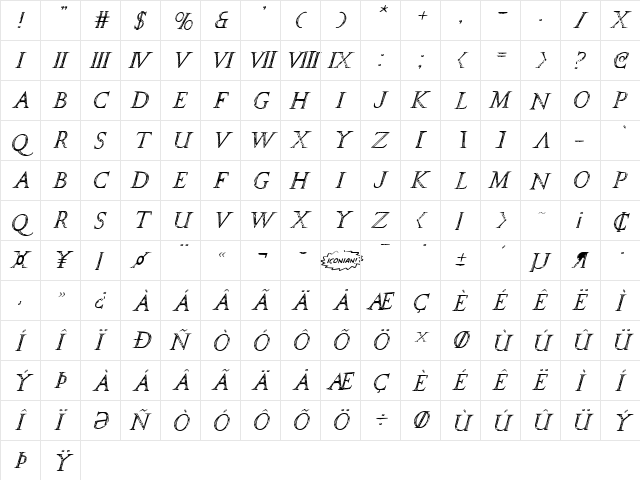
SPQR Italic Italic
Design Context for SPQR Italic Typeface
SPQR Italic offers clean, dependable letterforms without strong stylistic allegiance, making it a practical choice for designers who need flexibility. The slanted form adds forward momentum and visual energy.
Pro Tip: Try SPQR Italic for annotation and caption copy alongside an upright companion — the contrast in angle creates a dynamic but ordered typographic system.